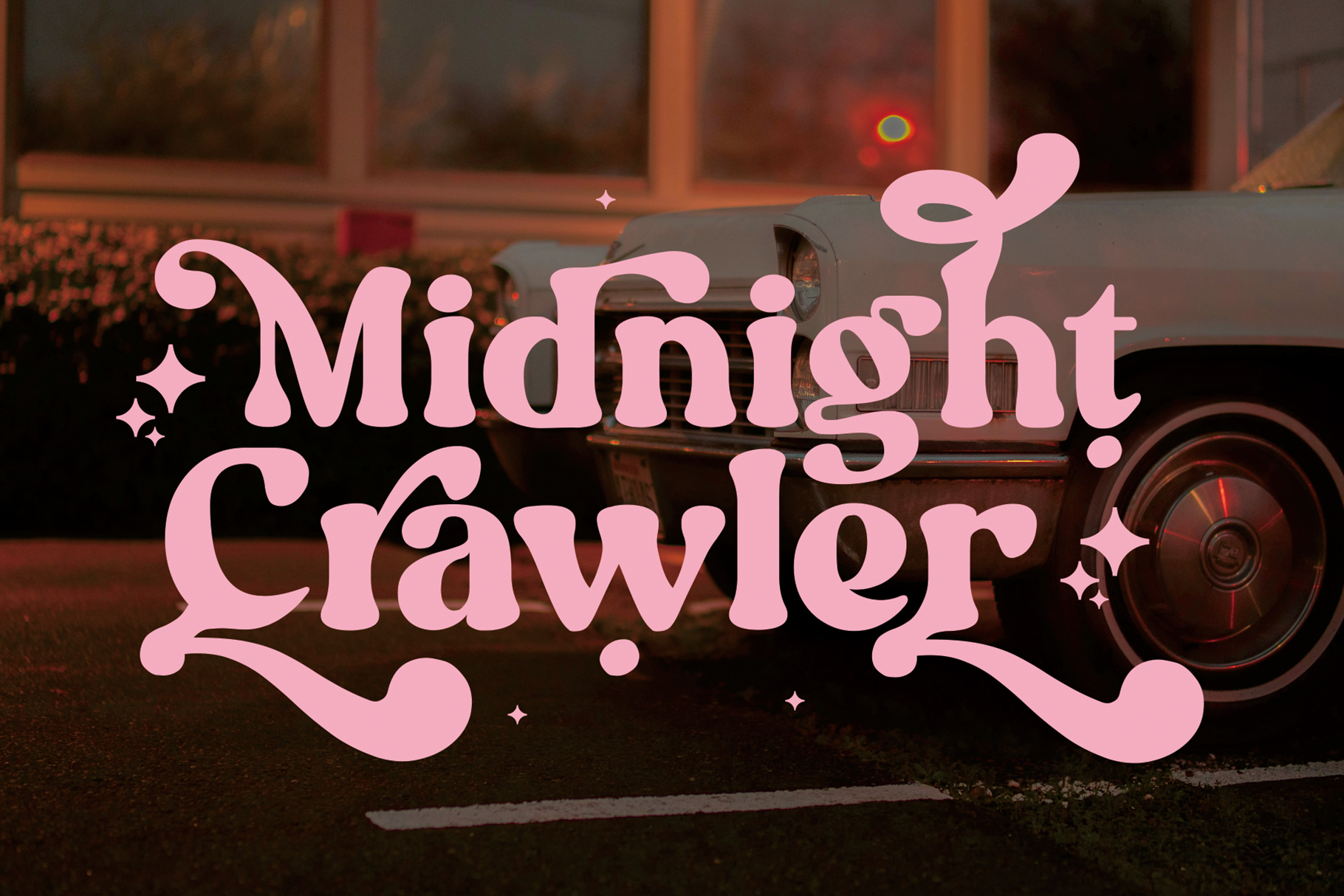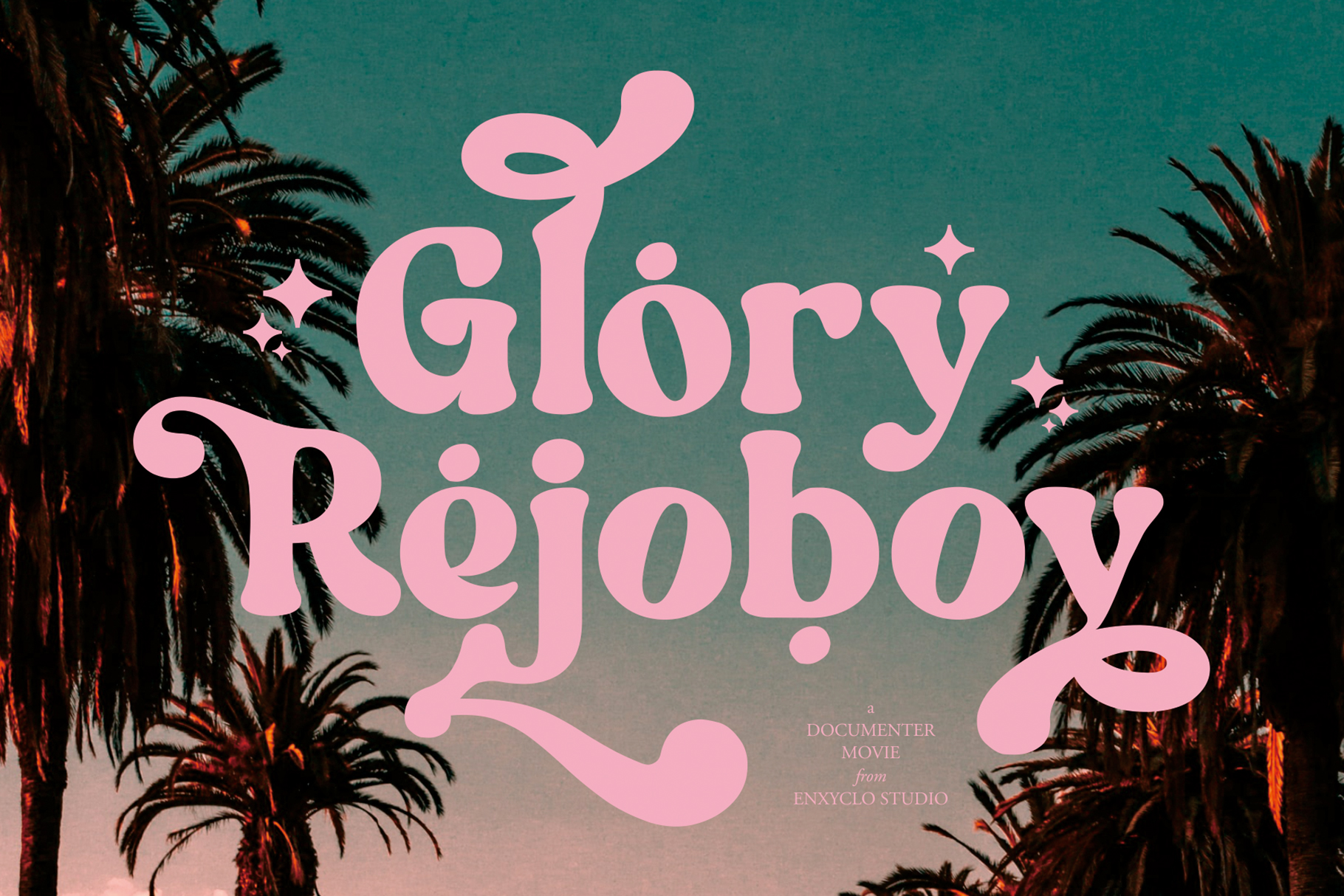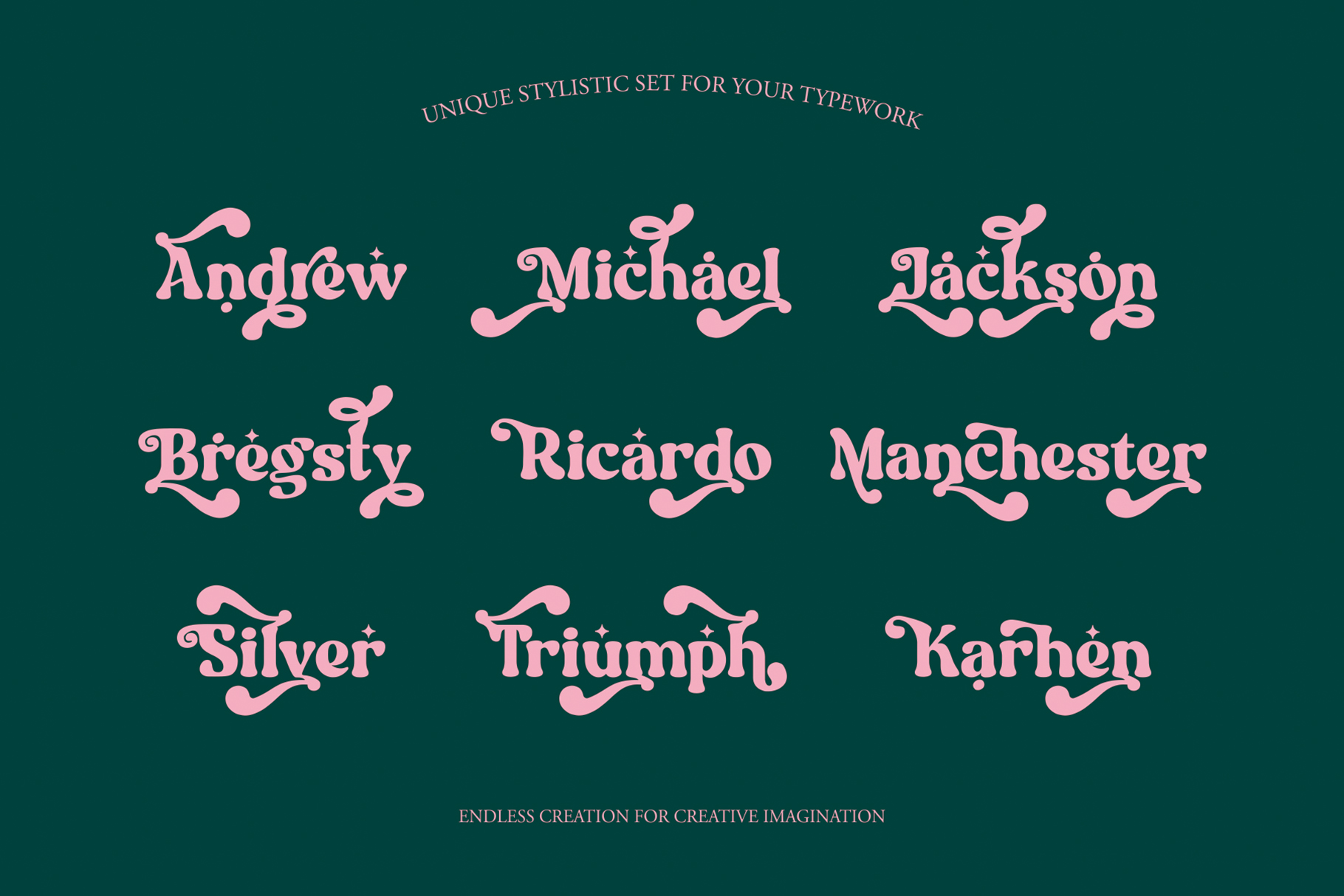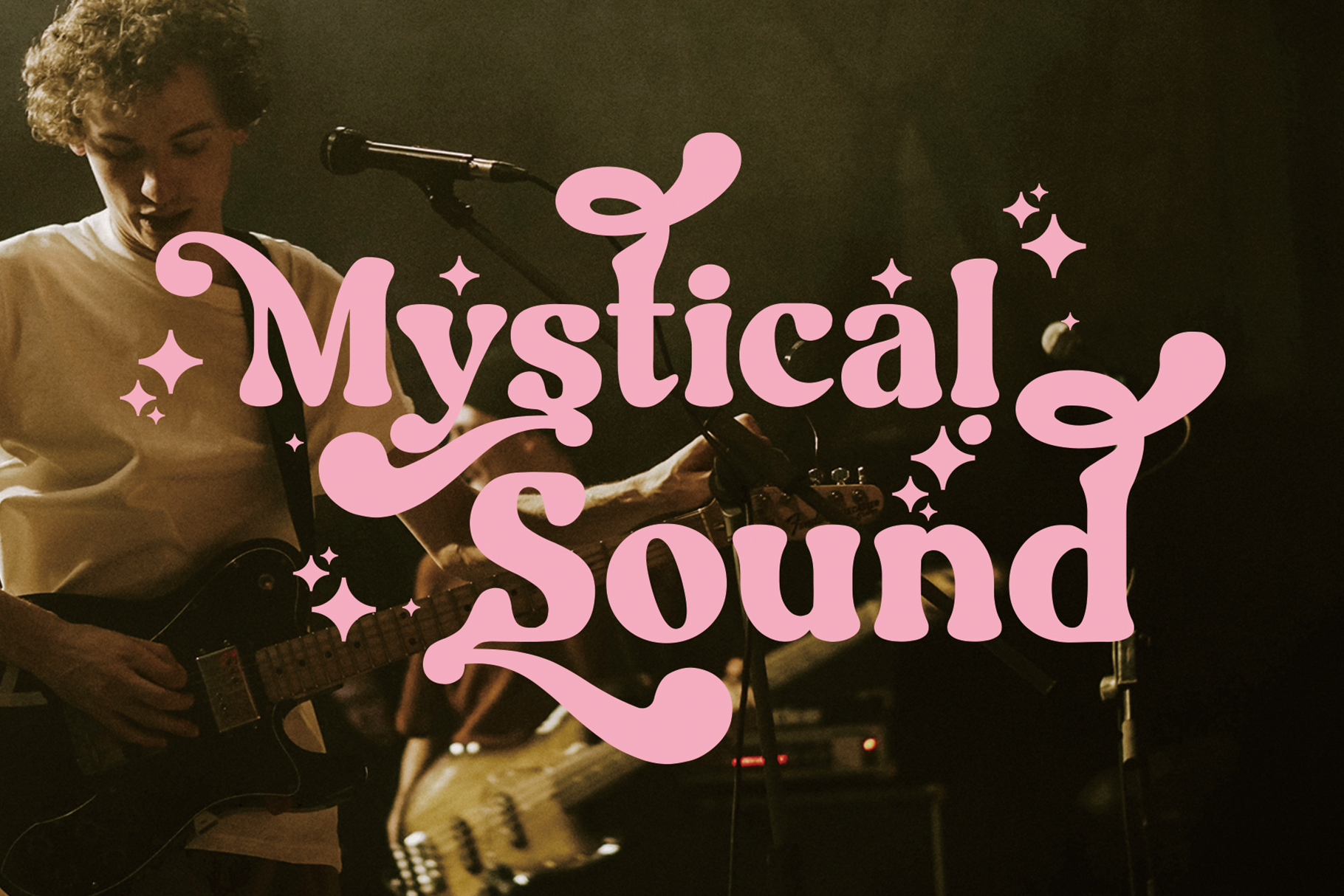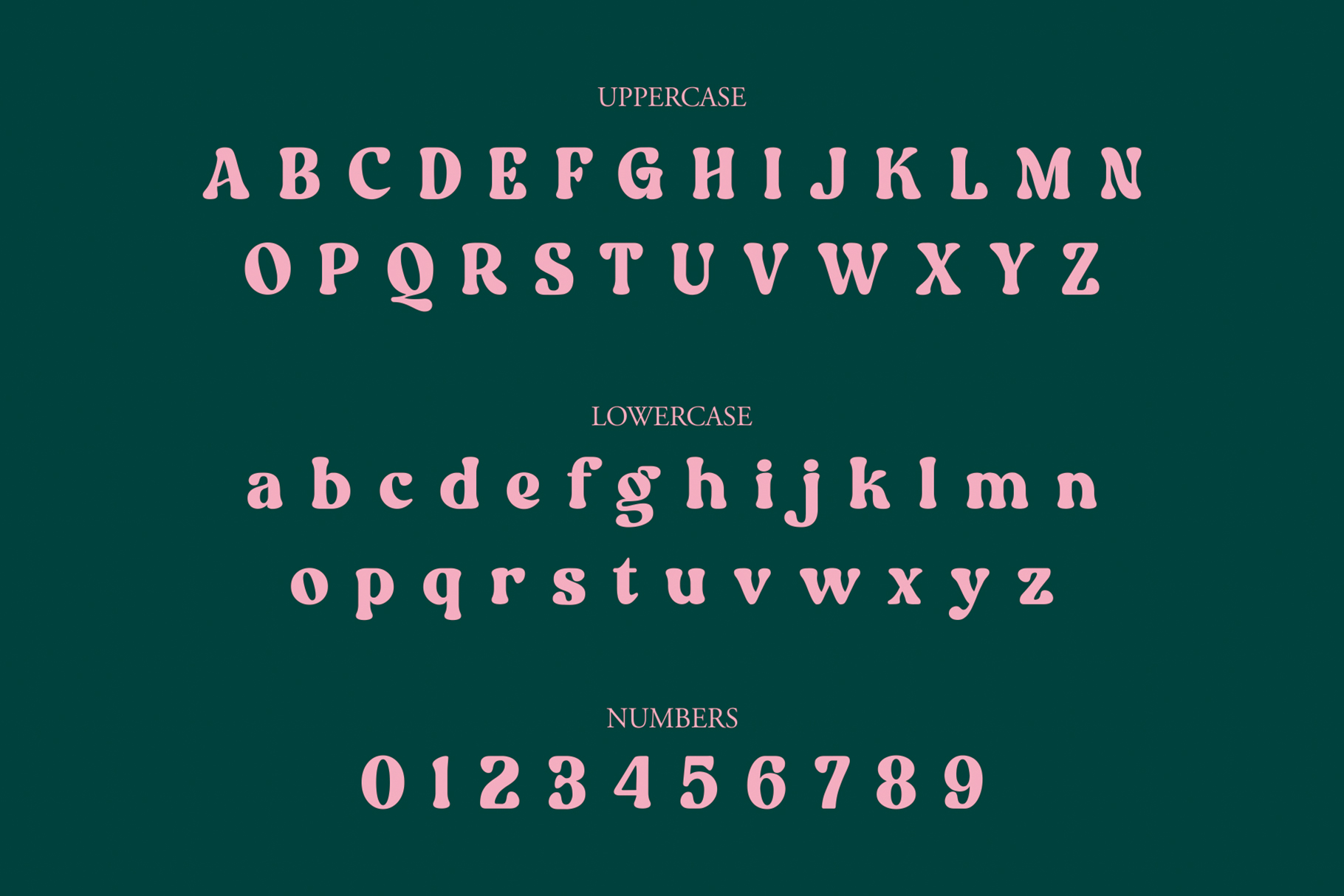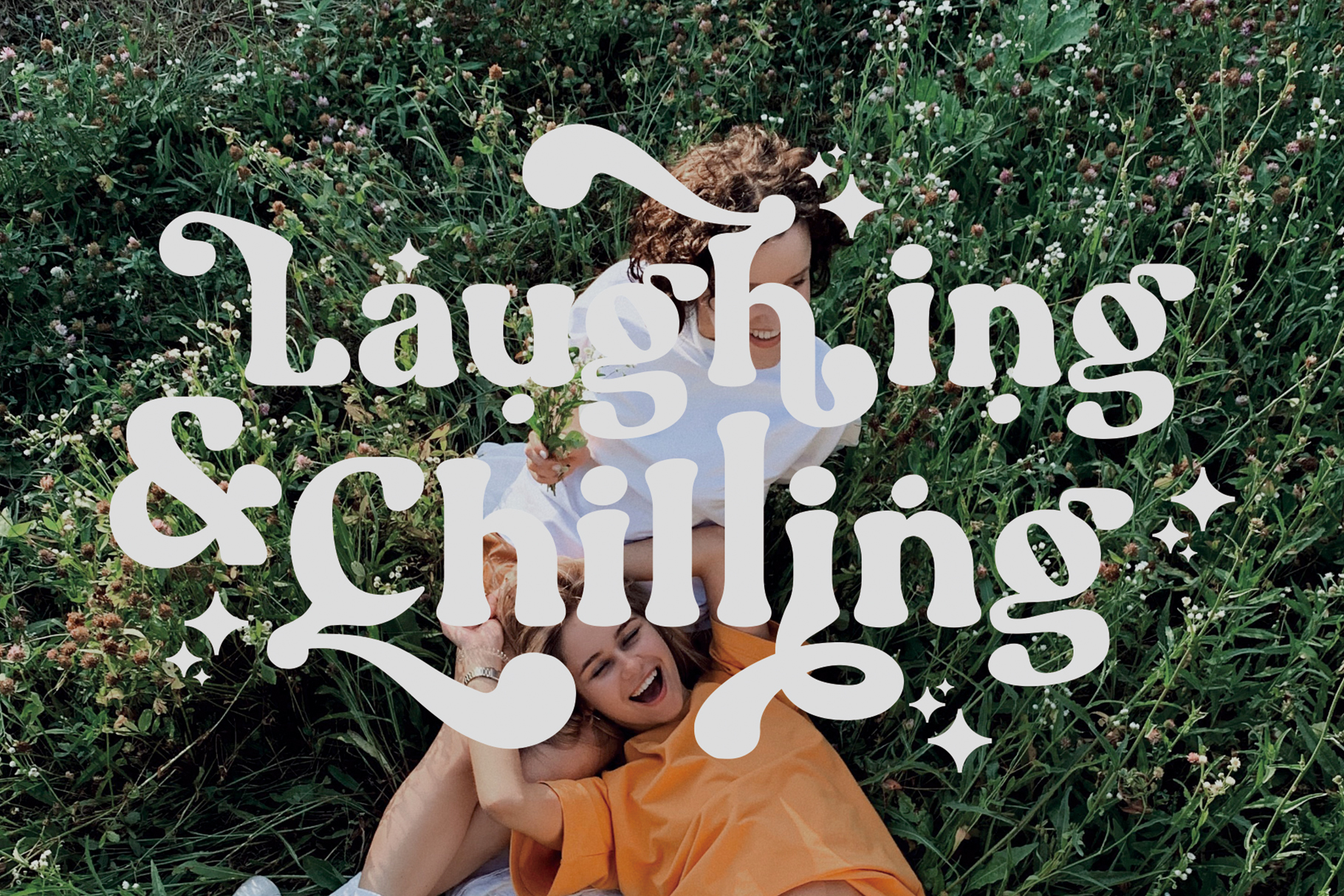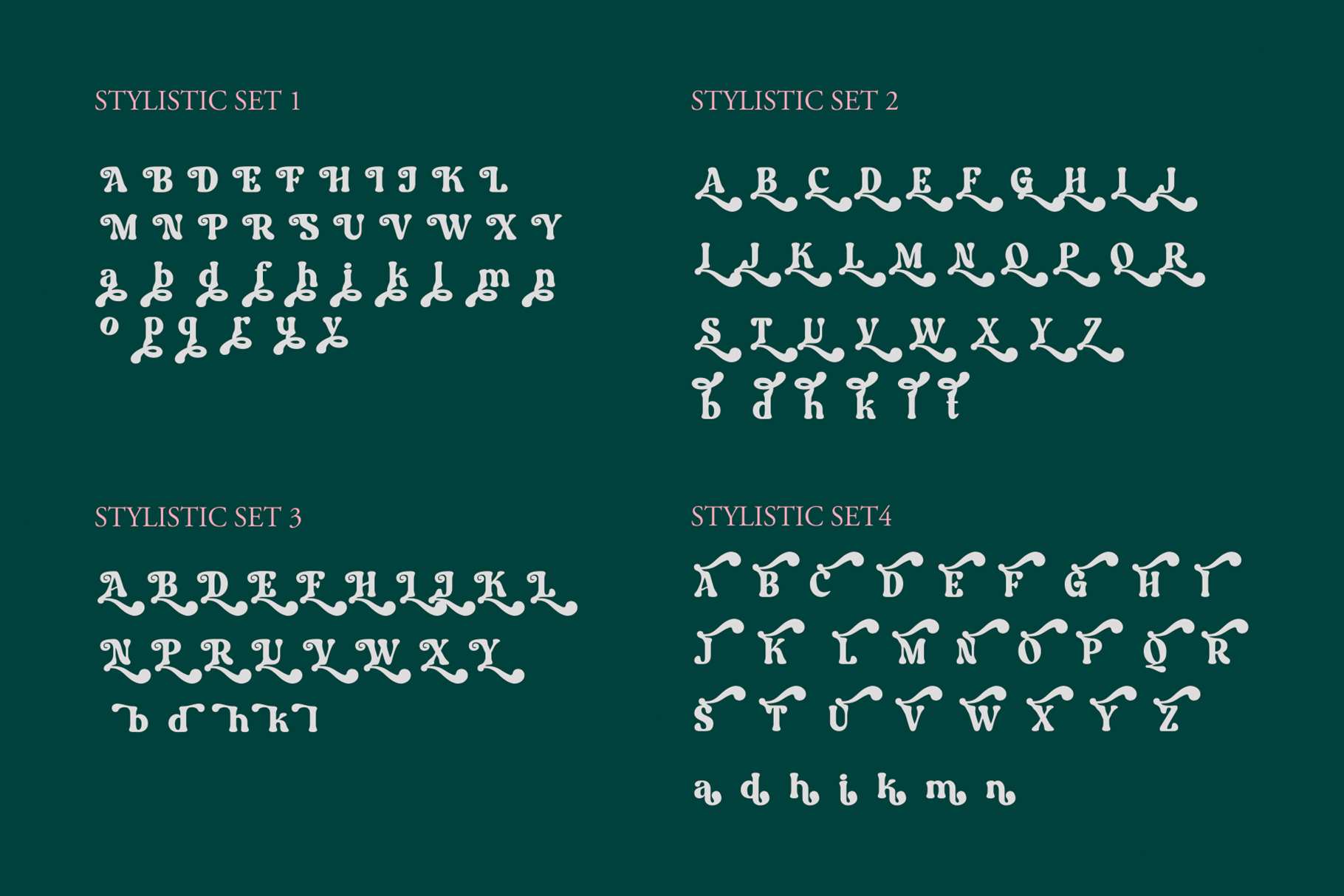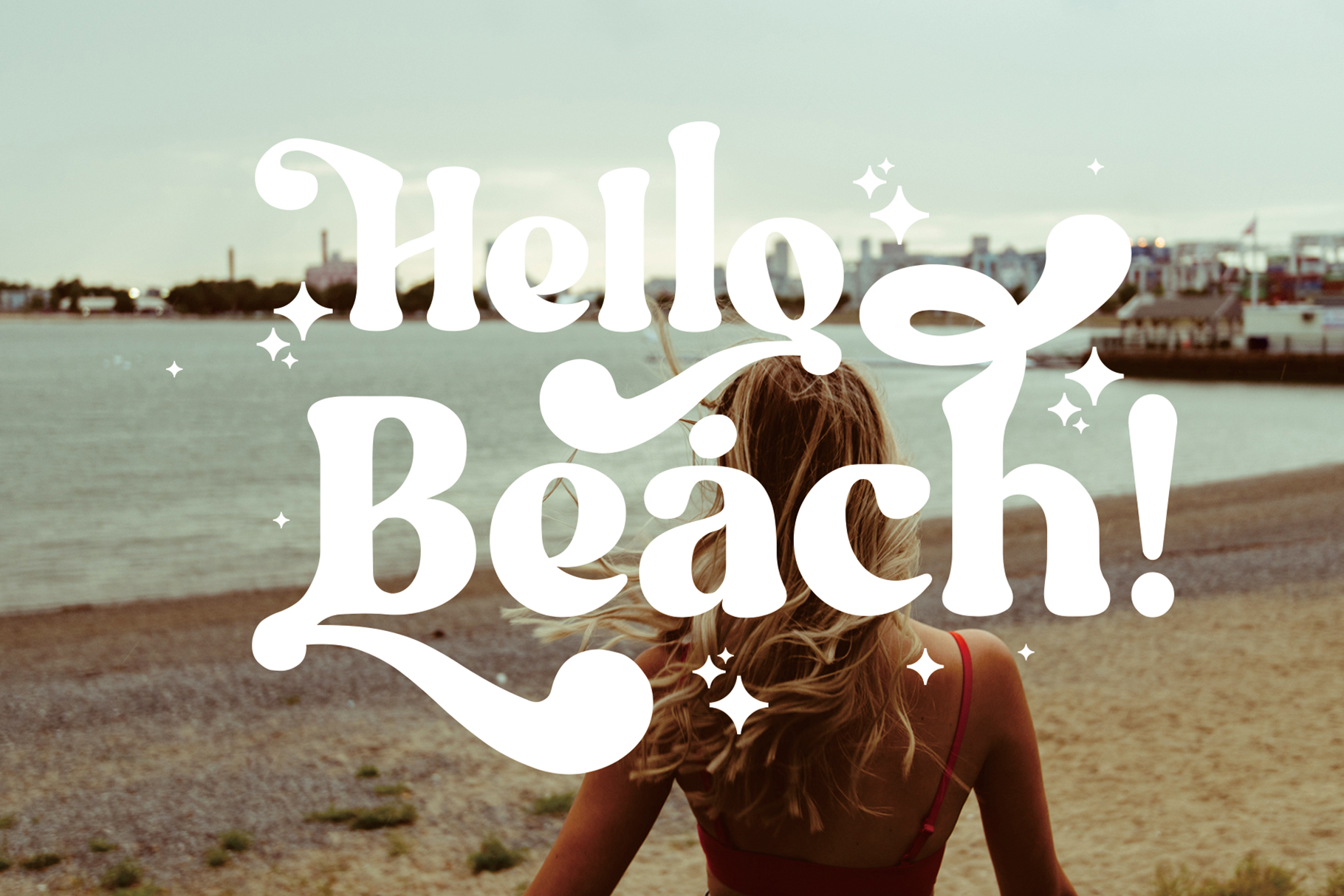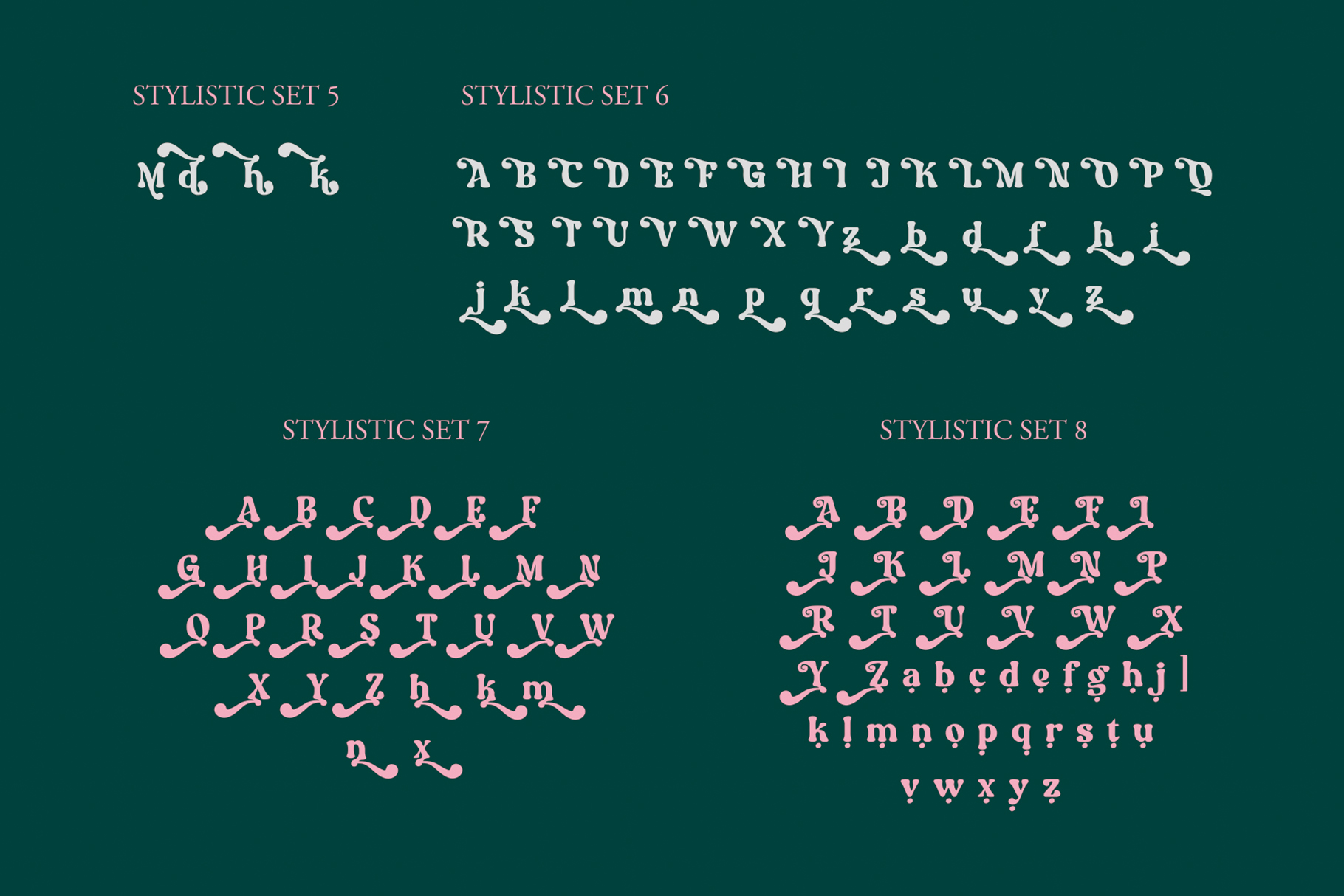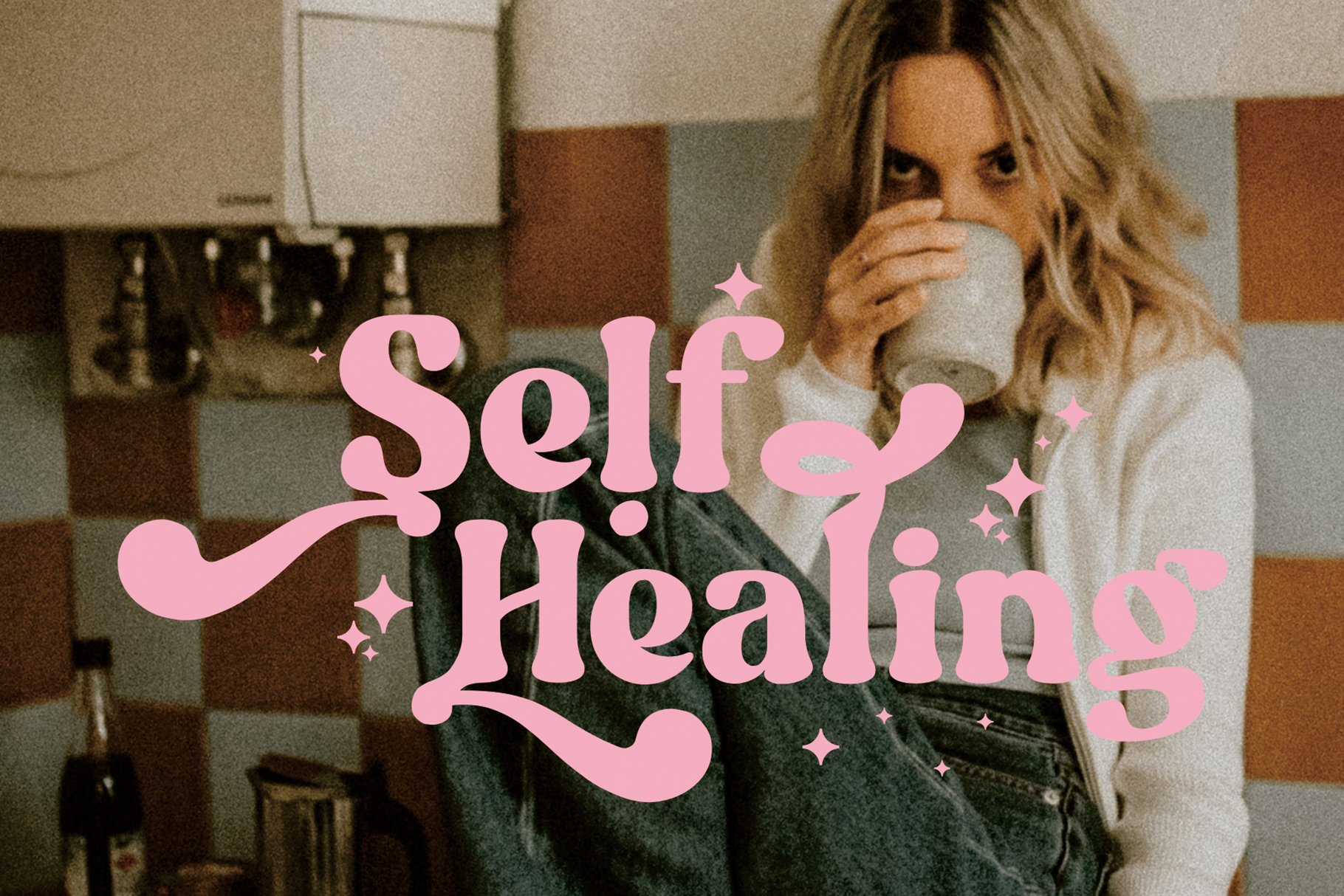
NCL Aekabih Muskey – Retro Groovy Bold Font
NCL AEKABIH MUSKEY is a retro groovy bold font. Masterfully designed to become a true favorite, this font has the potential to bring each of your creative ideas to the highest level! It was purposely crafted to be used in large point sizes, although it doesn’t lose its magic in small point sizes. It is perfect for wedding, headline, billboard, magazines, website, titles, poster, branding, and logos. No matter the topic, this font will be an incredible asset to your fonts’ library, as it has the potential to elevate any creation. With this beautiful font, absolutely you can make your project stand out from the rest.
• Contains 667 Glyphs
• Uppercase & Lowercase
• Numeral, Punctuation & Symbols
• Special Ligatures
• Stylistic Set 1-13
• Multilingual Support